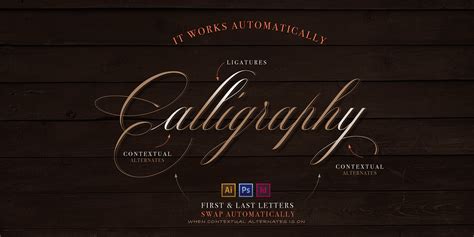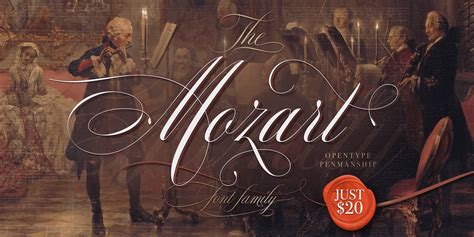
Mozart Script Font
Mozart Script Font - Very formal and yet playful multilingual. Web mozart script complete family pack | fonts.com. Very formal and yet playful one with six.
Web mozart script complete family pack | fonts.com. Very formal and yet playful multilingual. Very formal and yet playful one with six.
Very formal and yet playful one with six. Web mozart script complete family pack | fonts.com. Very formal and yet playful multilingual.
Mozart Script Font Fontspring
Very formal and yet playful one with six. Web mozart script complete family pack | fonts.com. Very formal and yet playful multilingual.
Mozart Script Font Fontspring
Web mozart script complete family pack | fonts.com. Very formal and yet playful multilingual. Very formal and yet playful one with six.
Mozart Script Font Fontspring
Very formal and yet playful one with six. Web mozart script complete family pack | fonts.com. Very formal and yet playful multilingual.
Mozart Script Font Fontspring
Web mozart script complete family pack | fonts.com. Very formal and yet playful multilingual. Very formal and yet playful one with six.
Mozart Font Spencerian Script Blessed Print
Web mozart script complete family pack | fonts.com. Very formal and yet playful one with six. Very formal and yet playful multilingual.
The Mozart Script Font
Very formal and yet playful one with six. Web mozart script complete family pack | fonts.com. Very formal and yet playful multilingual.
The Mozart Script Font
Very formal and yet playful one with six. Very formal and yet playful multilingual. Web mozart script complete family pack | fonts.com.
The Mozart Script Font
Very formal and yet playful one with six. Web mozart script complete family pack | fonts.com. Very formal and yet playful multilingual.
Mozart Script Font Fontspring
Very formal and yet playful multilingual. Web mozart script complete family pack | fonts.com. Very formal and yet playful one with six.
Very Formal And Yet Playful One With Six.
Very formal and yet playful multilingual. Web mozart script complete family pack | fonts.com.